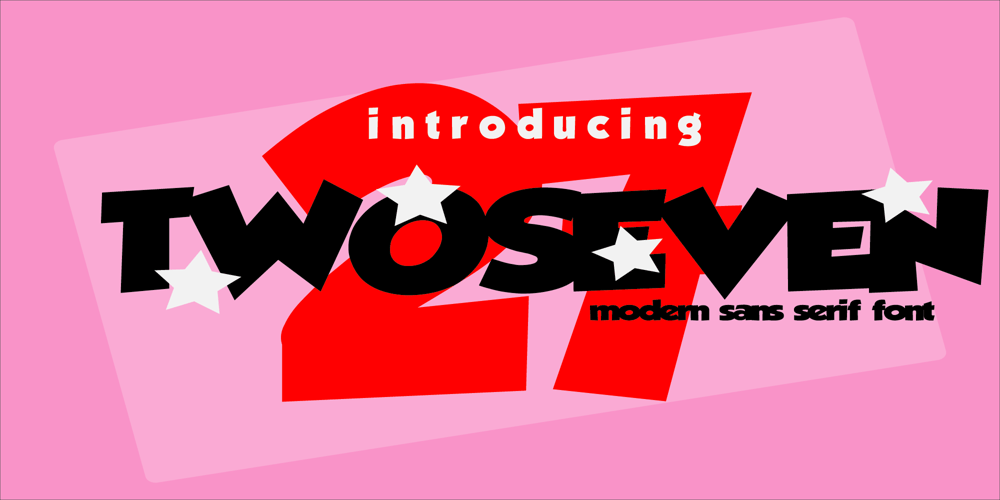
TwoSeven
TwoSeven font
TwoSeven Font Family was designed by akhmad rizki cahyadi and published by Mazkicibe. TwoSeven contains 1 styles and family package options. TwoSeven Font is Sans Serif and modern font combined with a sweet touch and beautifully curved each letter. using a touch of soft curves so that it is pleasing to the eyeTwoseven Font Spirit is great for: Wedding invitations, fashion magazines, logos, signatures, and suitable for watermark photography. Features: -Uppercase, -Lowercase, -Numeral, -Punctuation,